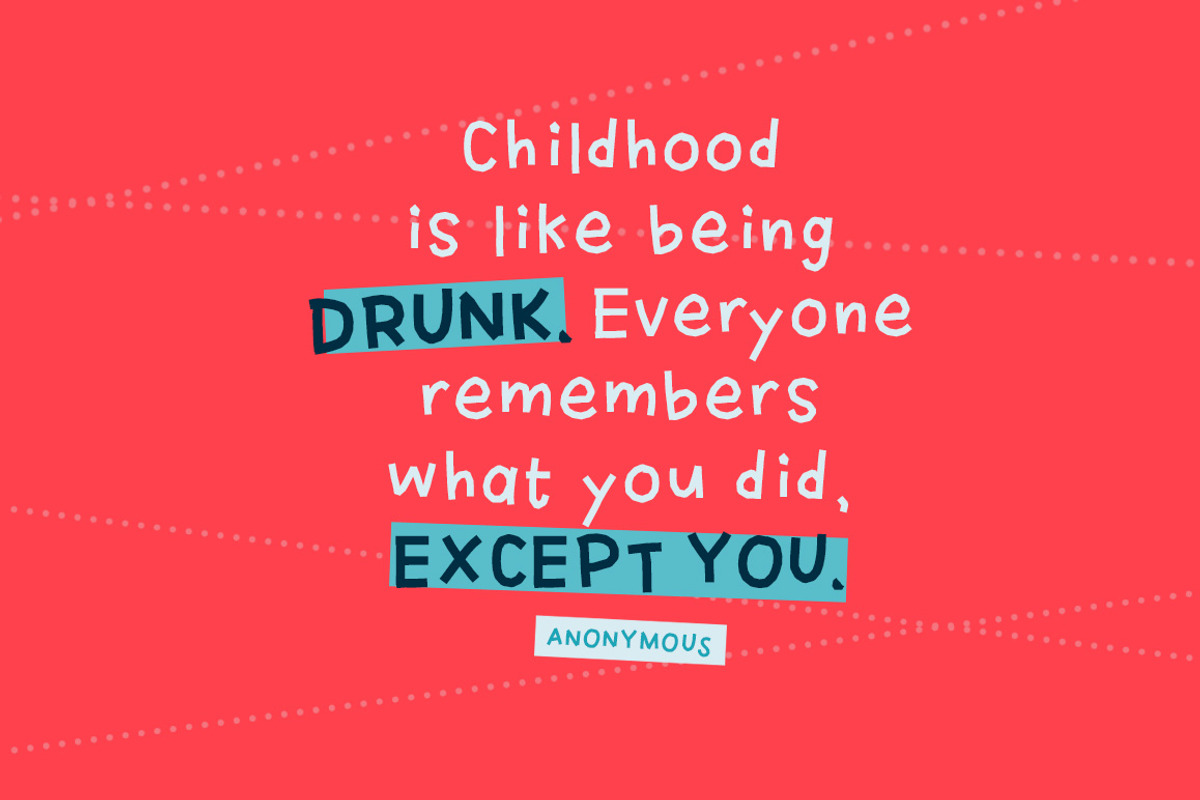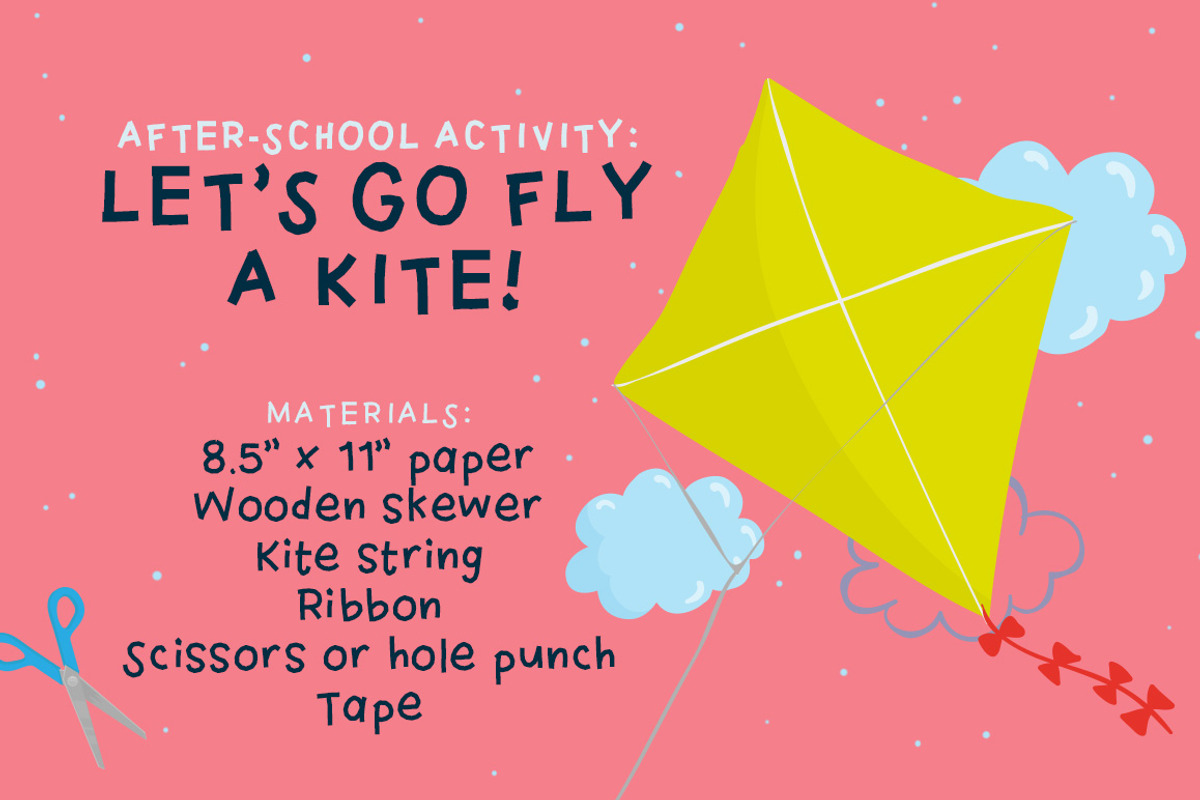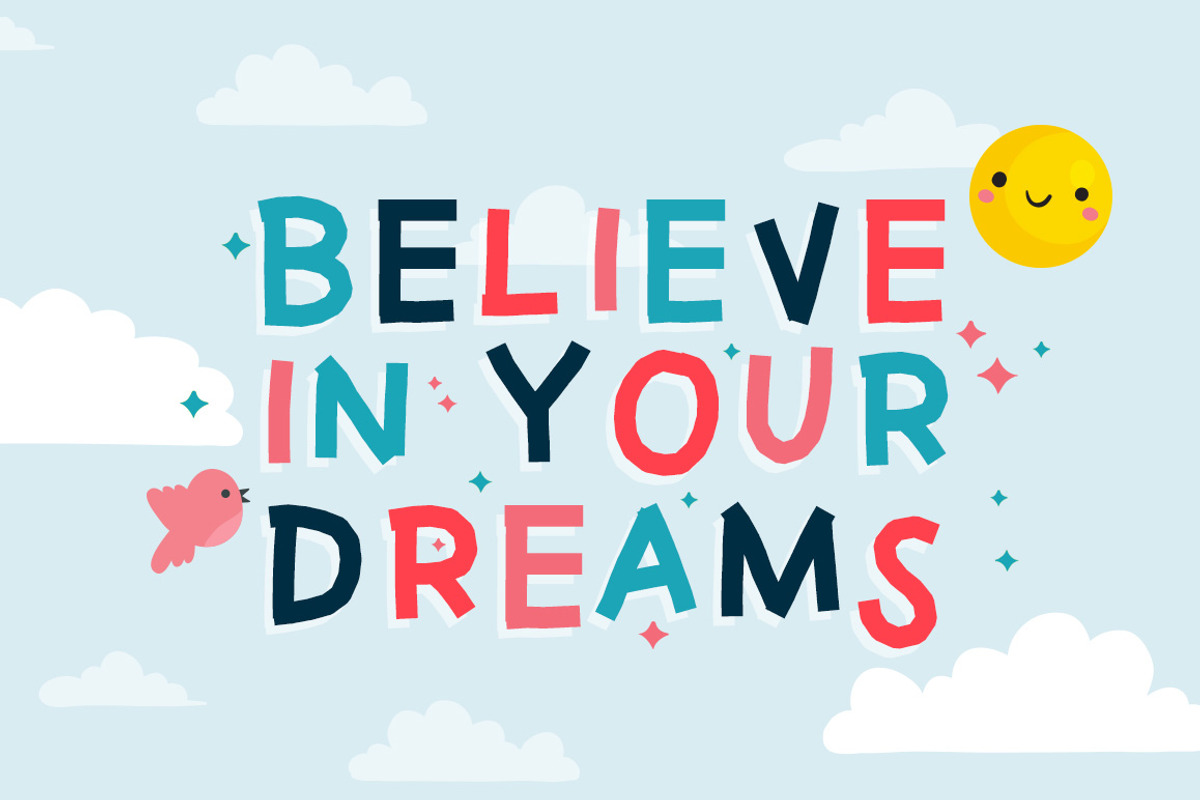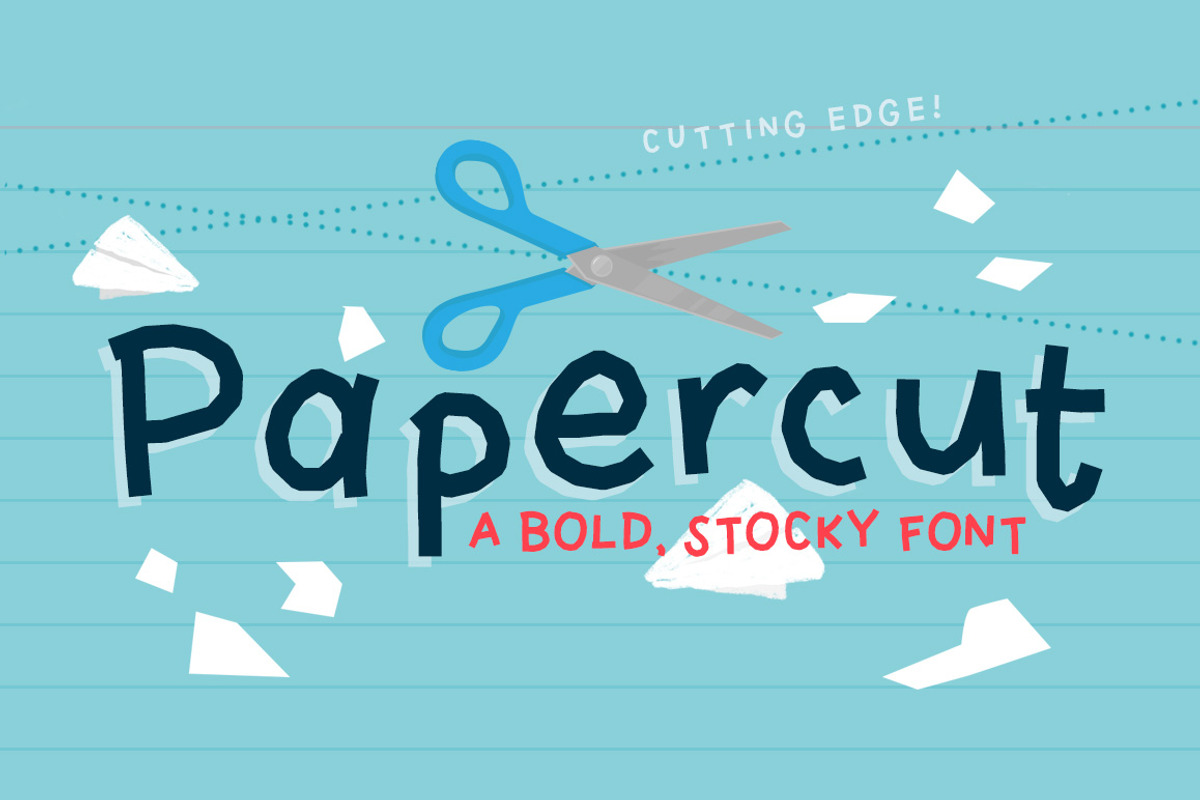
Papercut Font
Papercut is a simple yet bold font reminiscent of paper cutouts in elementary school, giving off an air of youthful, irreverent, and playful nostalgia for your projects.
- All uppercase
- All lowercase
- Numerals and punctuation
- European language characters
Comes in two weights, Papercut and Papercut Heavy.